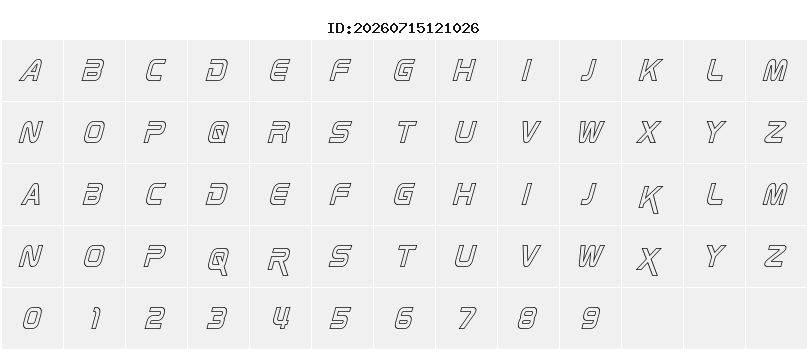
Zebulon Condensed Hollow Preview
• Font Name: Zebulon Condensed Hollow
• Designer: Neale Davidson
About Zebulon Condensed Hollow.otf
Zebulon Condensed Hollow.otf is a modern, elegant sans-serif font designed for ultimate readability and visual harmony. Perfect for branding, headlines, web design, and print materials.